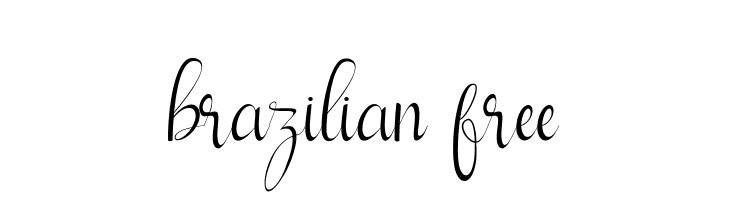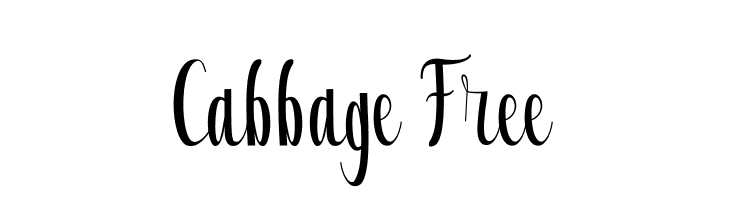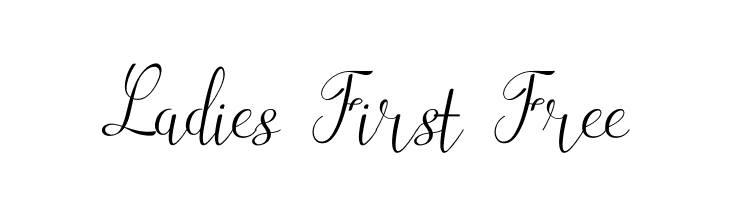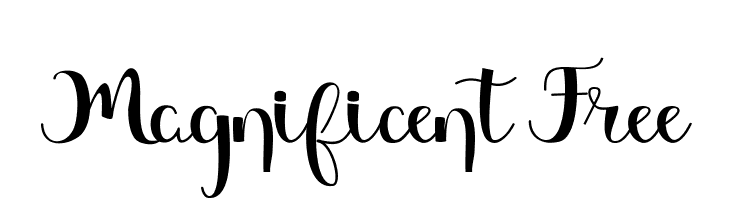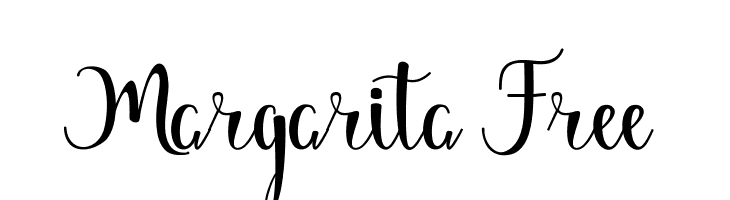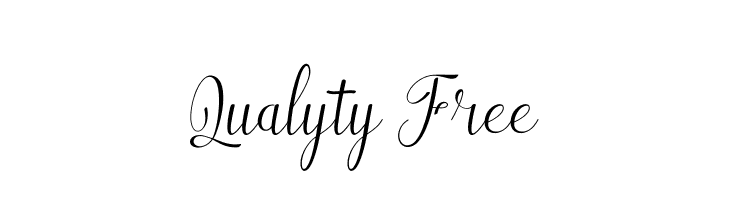
• Qualyty Free
A refined and elegant script font with flowing, cursive letterforms and high contrast strokes.
• Wittering on Free
A whimsical, cursive font with flowing, elongated strokes and dynamic line variations.
• brazilian free
An elegant, flowing script font with modern, artistic curves.
• Margarita Free
A playful, cursive script font with bold strokes and artistic flair.
• Boutique Free
A stylish and elegant script font with flowing, interconnected letterforms.
• Ladies First Free
An elegant script font with flowing, cursive style and intricate flourishes.
• Cabbage Free
A whimsical, cursive-like font with playful strokes and elegant curves.
• Magnificent Free
A playful and artistic script font with dynamic strokes.
• Quixotic Free
A whimsical, hand-drawn script font with fluid and artistic strokes.
• Nayla Free
An elegant script font with flowing, cursive letters and high contrast strokes.